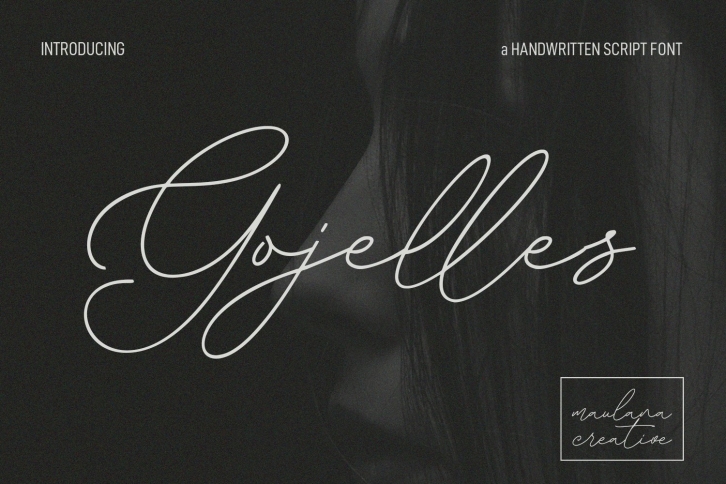
Gojelles Signature Script is a beautiful font that was designed by Maulana Creative. It's a great choice for designers and creatives who need such a font. It was released on April 8, 2022 and the file size is 5.58 MB. Gojelles Signature Script may give a more youthful, expressive and casual look to your project. It is a very beautiful, refined, elegant, and high-quality font.